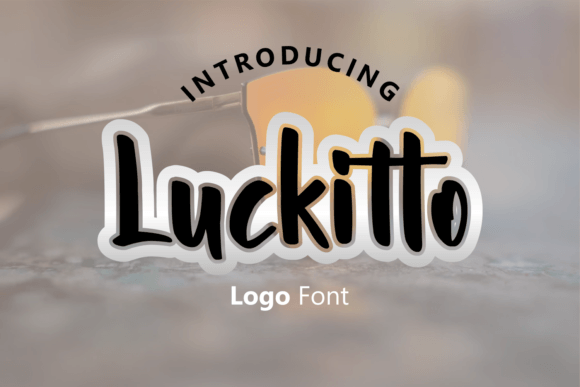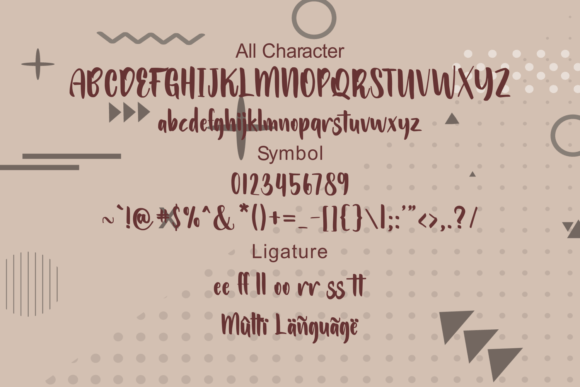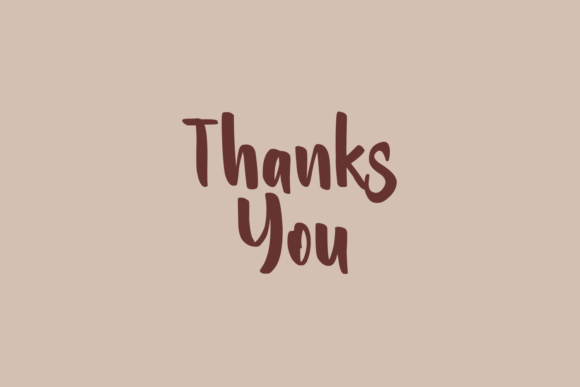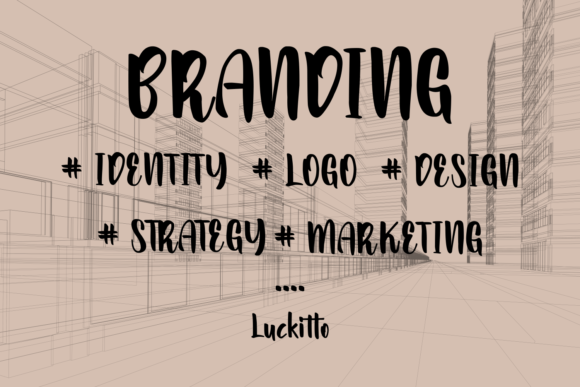
Luckitto Font: Unique and Fresh Logo Typeface for Your Brand
Luckitto Font is a distinctive and fresh logo font inspired by snack food product packaging designs. It offers a unique style that works perfectly for logos on packaging, brand identities, brochures, headlines, headers, clothing hand tags, shoes, and many other casual products. This font stands out because of its versatility and bold character, making it a great choice for any modern branding project.
Furthermore, LuckittoFont includes uppercase and lowercase letters, symbols, standard ligatures, and supports multiple languages, making it highly adaptable for diverse design needs.
Versatile Uses for Luckitto Font
LuckittoFont is ideal for a variety of creative projects such as:
Product packaging logos
Brand identity logos
Brochures and marketing materials
Headlines and headers for websites or print
Clothing tags and apparel branding
Shoe branding and casual product logos
Thanks to its unique and fresh design, LuckittoFont adds personality and professionalism to any creative project.
Why Designers Choose Luckitto Font
Designers love LuckittoFont for its bold and fresh aesthetic, inspired by real product packaging that catches the eye. It adds a unique identity and style to logos and branding projects, helping businesses stand out in competitive markets. Whether you are designing for packaging, apparel, or digital media, LuckittoFont offers the perfect blend of uniqueness and functionality.